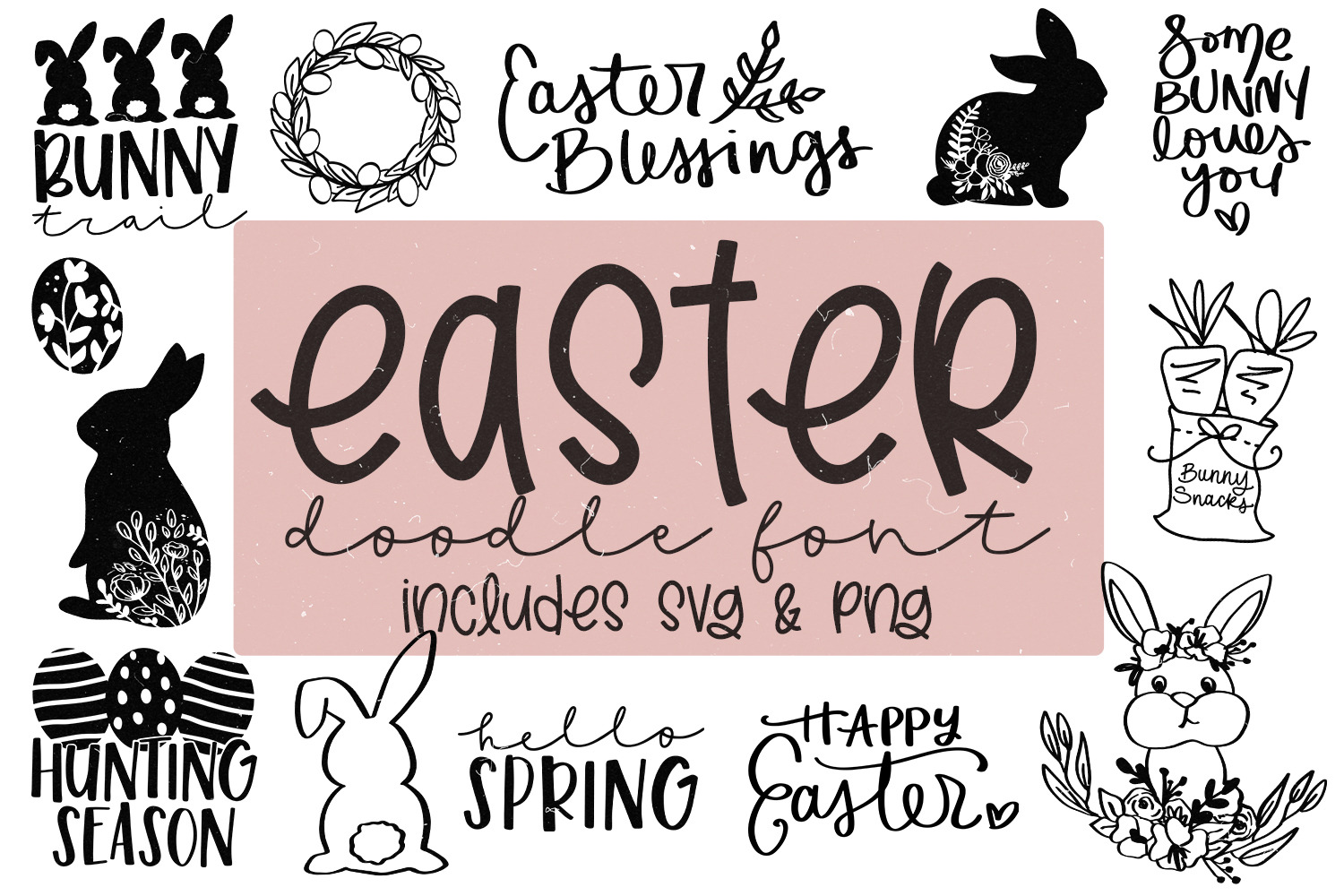
Easter Doodle Font | SVG Bundle
56 Hand lettered Easter quotes and hand drawn doodles right at your fingertips!
This is a symbols font (including SVG and PNG files) that can be used with any kind of program! Just type in any letter uppercase or lowercase & numbers 1-4 and you will get a super cute, hand lettered Easter phrase or doodle.